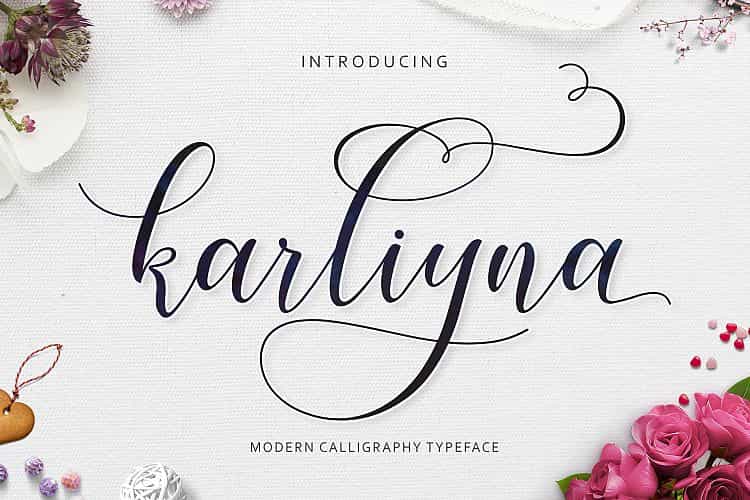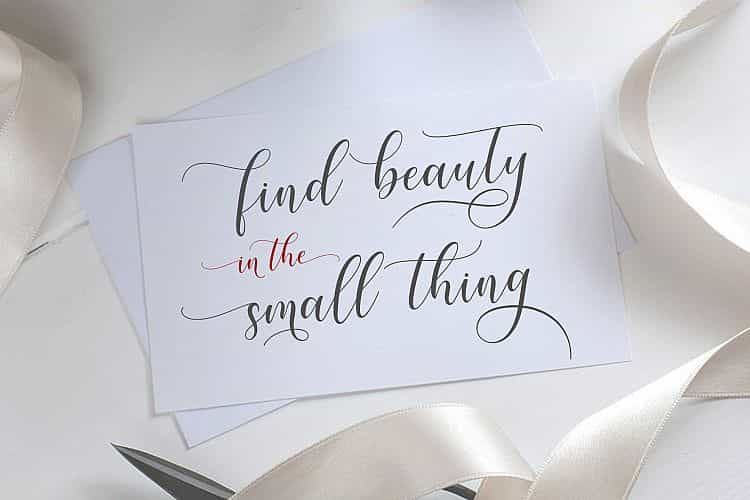
Introducing Karliyna Calligraphy Font. Karliyna Font created by MJCLetter. Karliyna Script Font is a modern script font, each and every letter has been carefully drawn to ensure that your text appears stunning. With modern script style this font will perfect for many different project, example: invitations, greeting cards, posters, name card, quotes, blog header, branding, logo design, fashion, apparel, letter, prints, stickers and more!